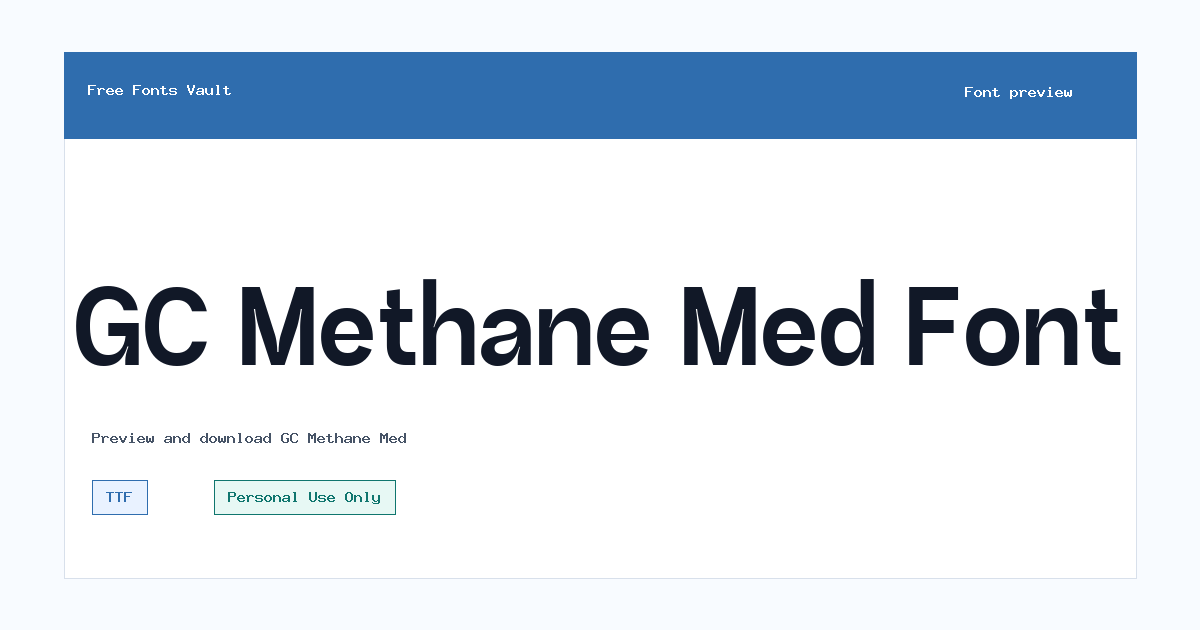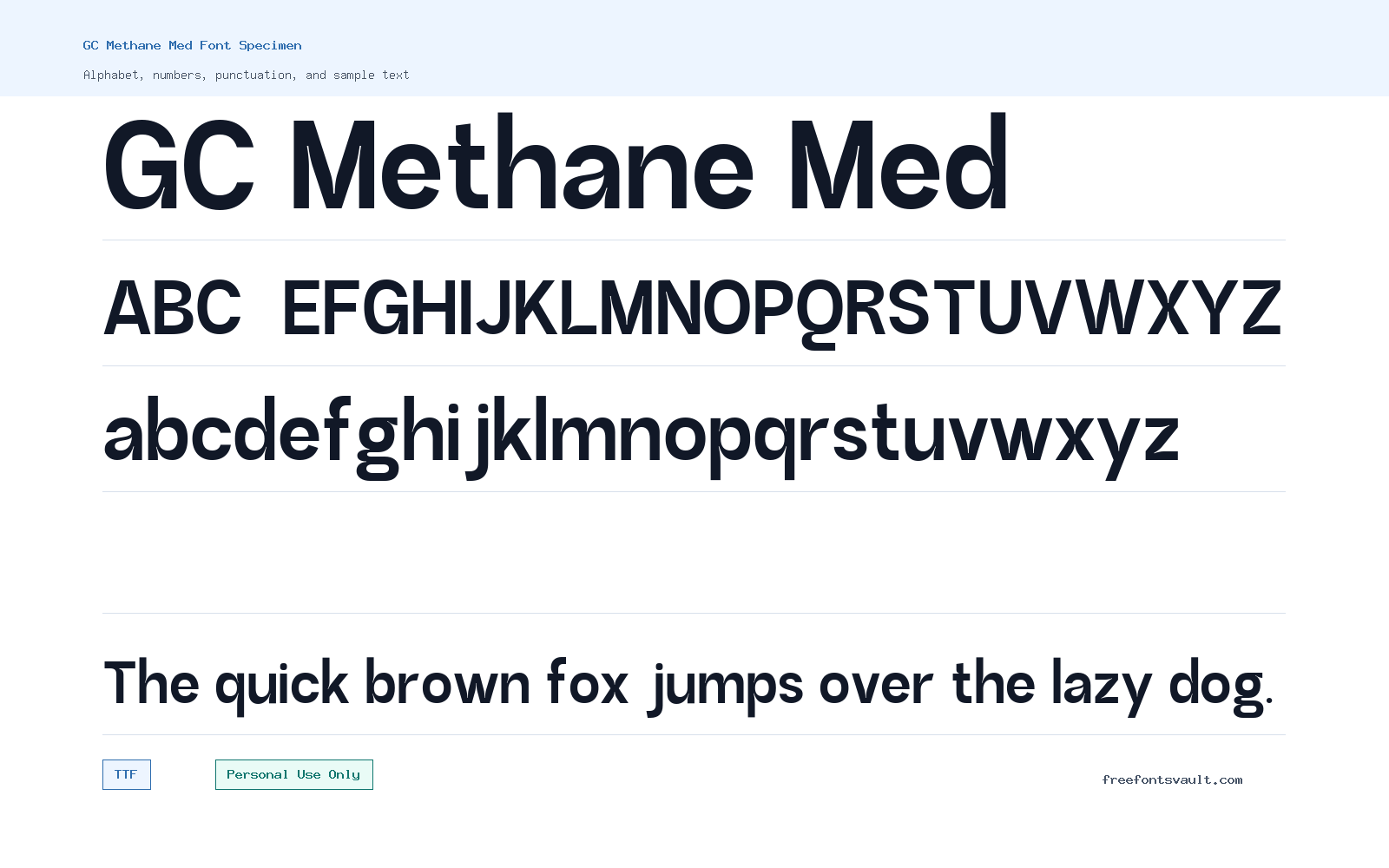
GC Methane Med
- Designer Ken Priska Dewirani of Glyphonic
GC Methane Med font.
GC Methane Med is a medium-weight sans serif font from the GC Methane family, offered as a demo TTF file for personal-use projects. It is a good option to test when you need a clean, steady display style without using a very light or very heavy weight.
About GC Methane Med
GC Methane Med sits in the middle-weight range, with the font file marked as weight 500 and normal style. That makes it useful for visitors who want a stronger voice than a regular text face but do not want the heavier feel of a bold font. Because it is identified as a sans serif font family, it is best approached as a clean, modern-looking choice for short headings, labels, title lines, posters, social graphics, and preview mockups.
- Medium 500 weight in normal style, useful for headings and short text where regular may feel too light.
- Personal posters, social media graphics, presentation titles, and short display text.
GC Methane Med is credited to Ken Priska Dewirani of Glyphonic, with Glyphonic listed as the foundry.
What type of font is GC Methane Med?
It is listed as part of the GC Methane sans serif font family, with this downloadable file using a medium 500 weight and normal style.